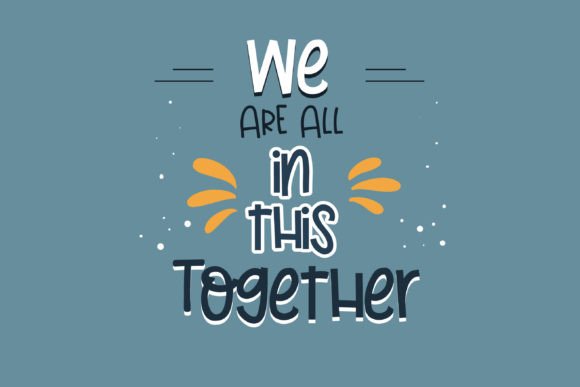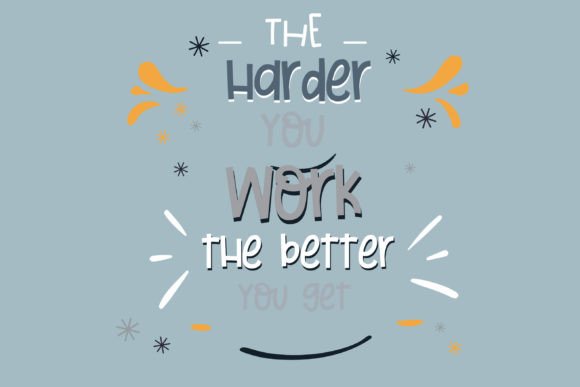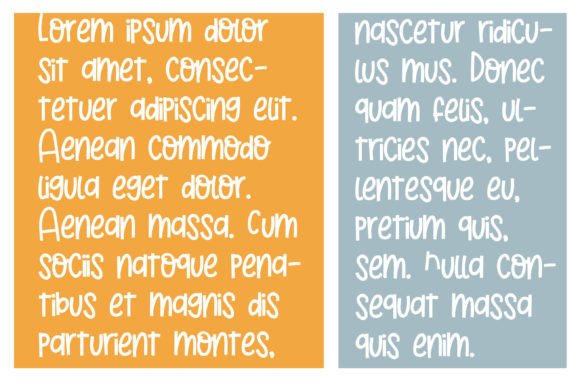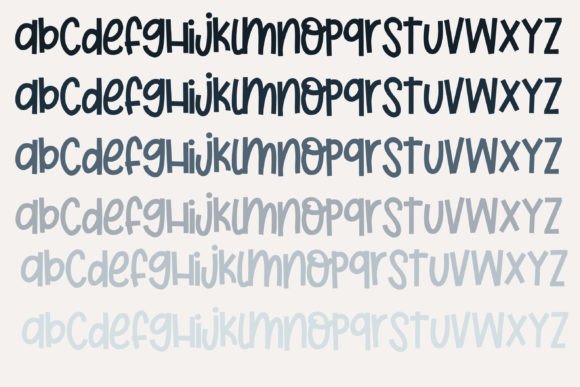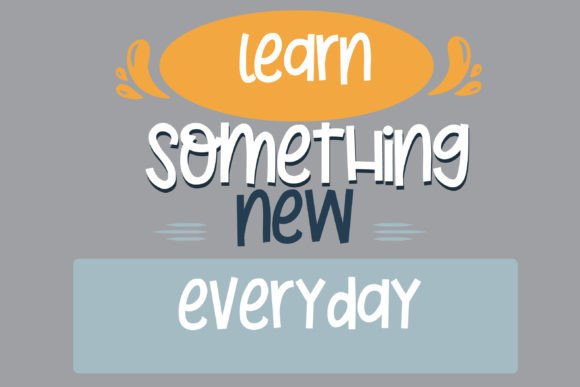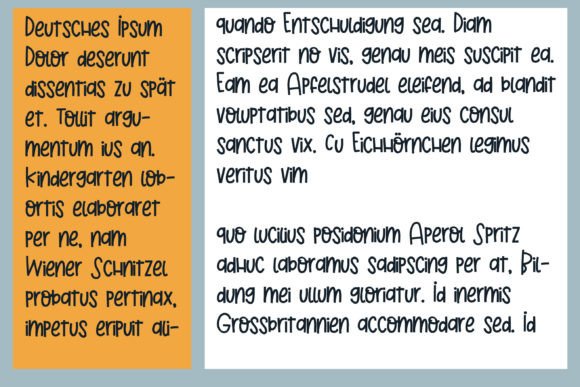
Introducing Grumpy Pants Font: The Ultimate Whimsical Script Font for Creative Designs
Are you tired of using the same old fonts for your designs? Look no further! We’re excited to introduce our latest addition to the world of typography – “Grumpy Pants” font. This whimsical script font is designed to add a touch of fun and imagination to your creative projects. With its playful and modern design, Grumpy Pants is sure to become your go-to font for all your design needs.
The Story Behind Grumpy Pants Font
Grumpy Pants font was created with the intention of bringing a smile to your face. Each letter is carefully crafted with charming curves and unexpected details, giving it a whimsical and dreamy look. The font’s unique design is perfect for designers and crafters who want to add a personal touch to their work. Whether you’re creating a logo, branding materials, or social media graphics, Grumpy Pants font is sure to make your designs stand out.
Key Features of Grumpy Pants Font
So, what makes Grumpy Pants font so special? Here are some of its key features:
- Whimsical Design: Grumpy Pants font features a playful and modern design that’s perfect for creative projects.
- Charming Curves: Each letter is crafted with charming curves and unexpected details, giving it a whimsical and dreamy look.
- Easy to Read: Despite its playful design, Grumpy Pants font is easy to read and works well for both headings and body text.
- Multilingual Support: Grumpy Pants font supports multiple languages, making it perfect for designers who work with international clients.
Grumpy Pants font is perfect for designers and crafters who want to add a touch of fun and imagination to their work. Here are some design ideas where Grumpy Pants font can shine:
- Branding and Logo Design: Use Grumpy Pants font to create unique and memorable logos for your clients.
- Social Media Graphics: Add a touch of whimsy to your social media graphics with Grumpy Pants font.
- Invitations and Party Decor: Use Grumpy Pants font to create playful and fun invitations and party decor.
- Packaging Design: Add a personal touch to your packaging design with Grumpy Pants font.
Tips for Using Grumpy Pants Font
Here are some tips for using Grumpy Pants font in your designs:
- Pair it with a Sans-Serif Font: Pair Grumpy Pants font with a sans-serif font for a modern and playful look.
- Use it for Headings: Use Grumpy Pants font for headings and titles to add a touch of whimsy to your designs.
- Experiment with Colors: Experiment with different colors to bring out the playful and whimsical nature of Grumpy Pants font.
In conclusion, Grumpy Pants font is a unique and playful script font that’s perfect for designers and crafters who want to add a touch of fun and imagination to their work. With its whimsical design and charming curves, Grumpy Pants font is sure to become your go-to font for all your design needs. So, what are you waiting for? Download Grumpy Pants font today and start creating!